Custom Gothic Messages with AI
Transform your message into a work of art. Our AI-powered tool helps you craft commanding blackletter lettering, design professional tattoo layouts, and generate unique streetwear logos with stunning architectural fonts in seconds.
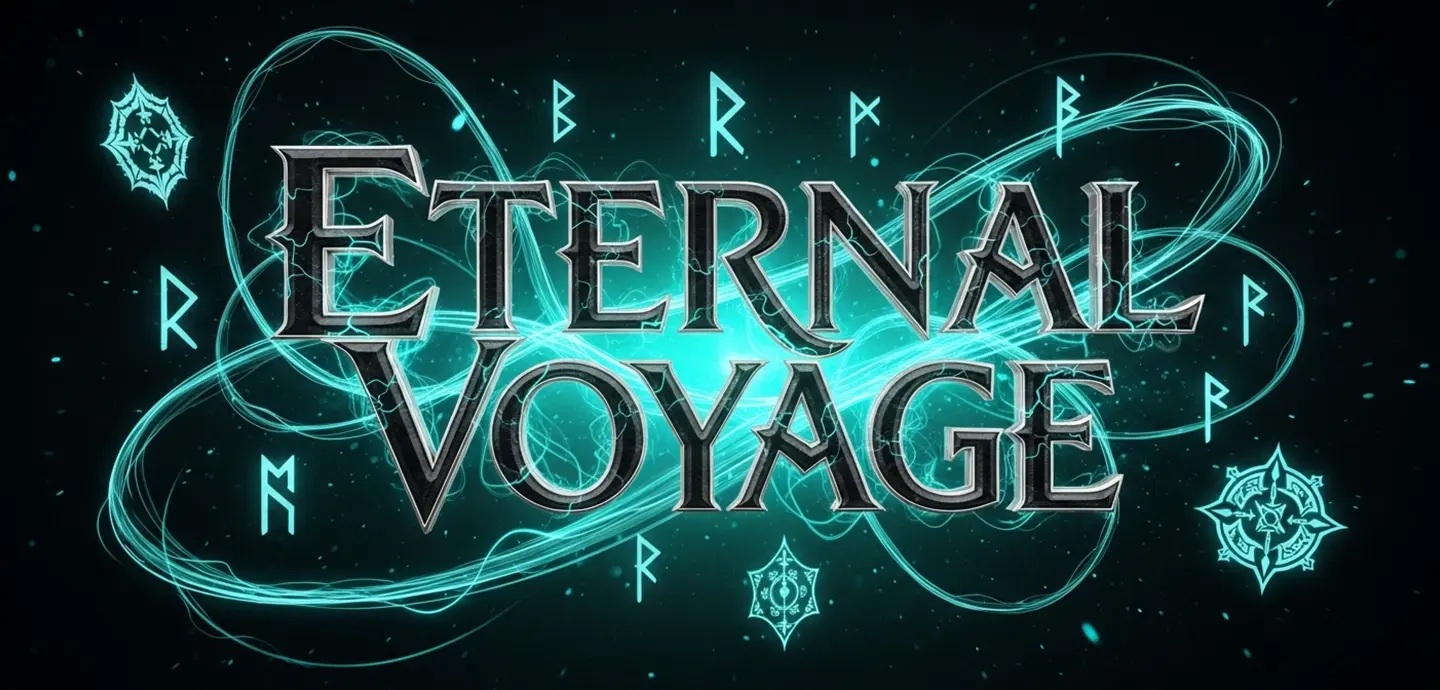
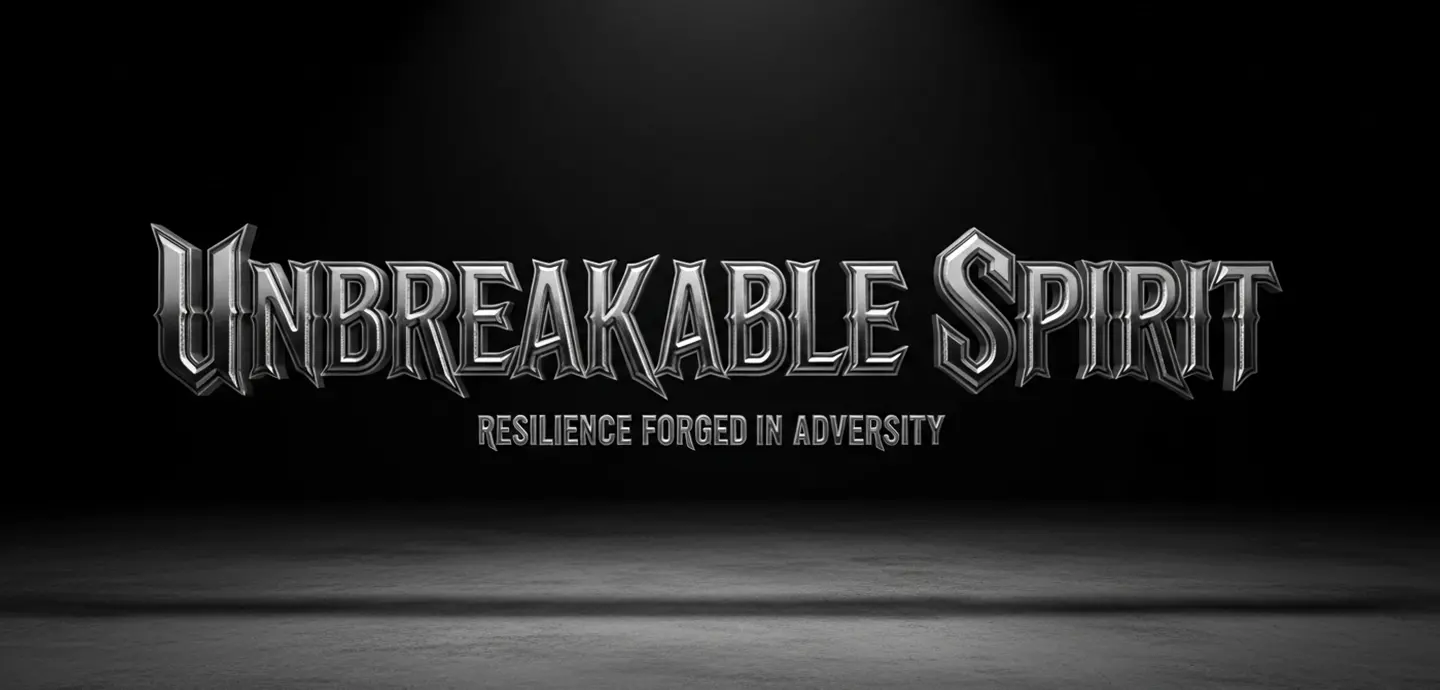
Bring your boldest ideas to life with masterful Gothic font styles that match your vision—from razor-sharp chrome and ancient stone to intricate tattoo ink and royal gold motifs. Our AI generator makes it effortless to explore and customize unique Blackletter designs, helping you forge the perfect logo or artistic lettering with endless creative possibilities.
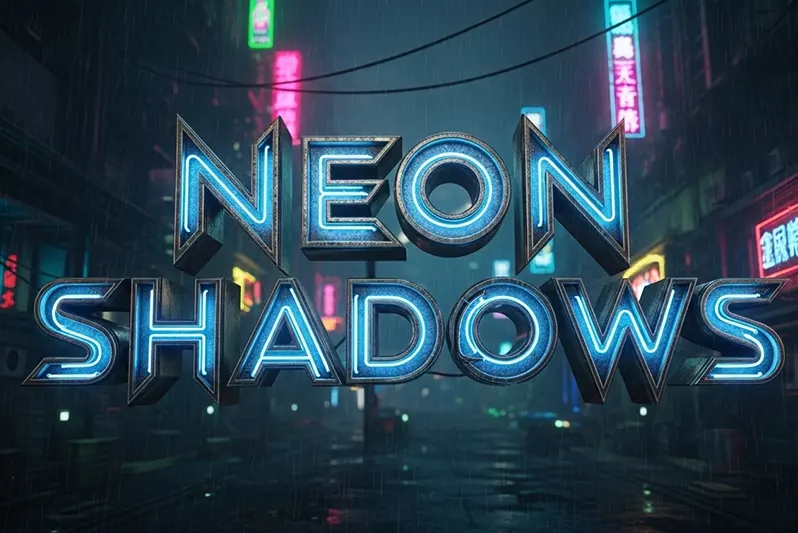
This razor-sharp chrome Gothic font features a high-shine metallic finish with aggressive, spiked edges. Set against dark concrete and neon glints, it is ideal for streetwear logos, edgy apparel branding, and making your brand identity feel like a bold statement.
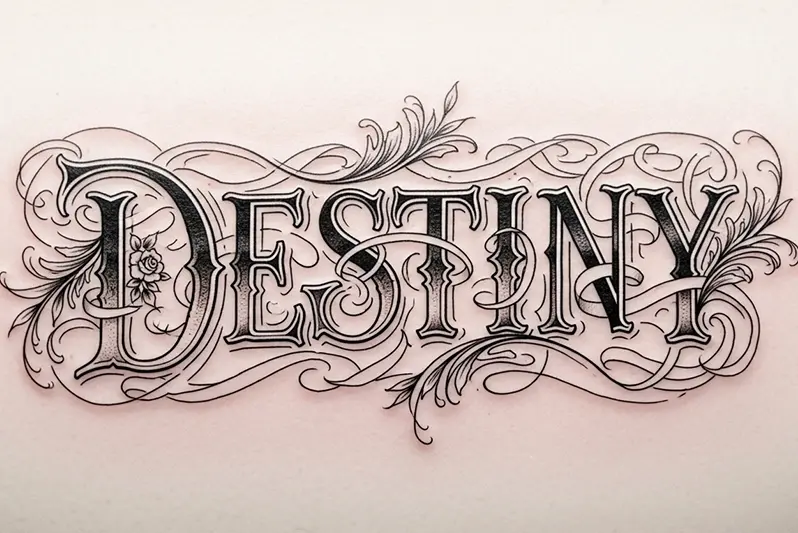
This ornate blackletter Gothic font features dense calligraphic flourishes and sharp, thorn-like details. Set against aged parchment and technical grids, it is ideal for professional tattoo flash art, custom body lettering, and creating an authentic handcrafted feel.
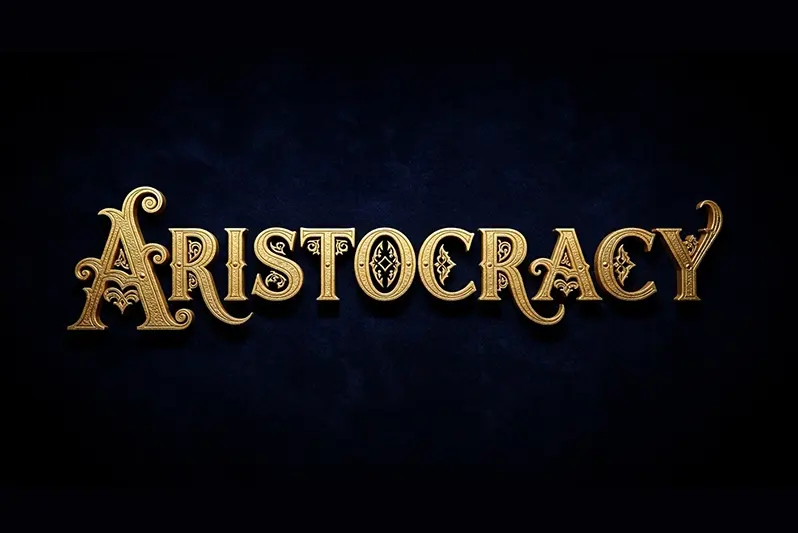
This regal gold Gothic font features a rich 3D embossed foil texture with an antique patina. Set against deep emerald velvet and soft-focus highlights, it is ideal for luxury packaging, high-end monograms, and making your brand feel like a timeless legacy.
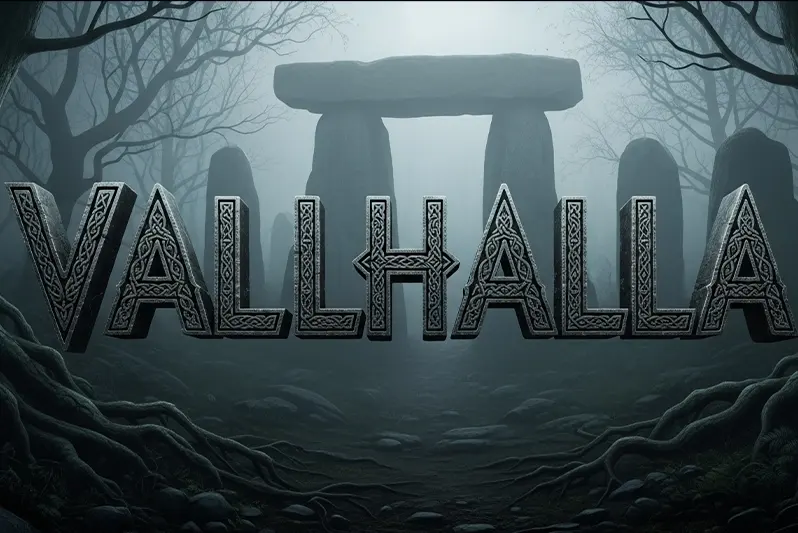
This ancient stone Gothic font features a rugged, weathered texture carved with mystical Celtic patterns. Set against misty forests and mossy ruins, it is ideal for epic fantasy book covers, RPG game titles, and creating a sense of ancient mystery.
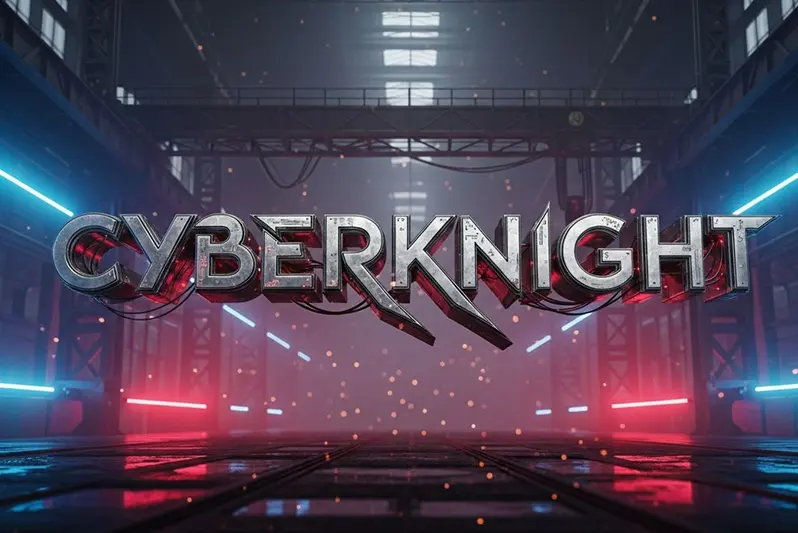
This mecha-industrial Gothic font features interlocking metallic plates and glowing red circuitry accents. Set against a smoky factory hangar and blue rim lights, it is ideal for collectible toy branding, sci-fi posters, and high-tech digital art.
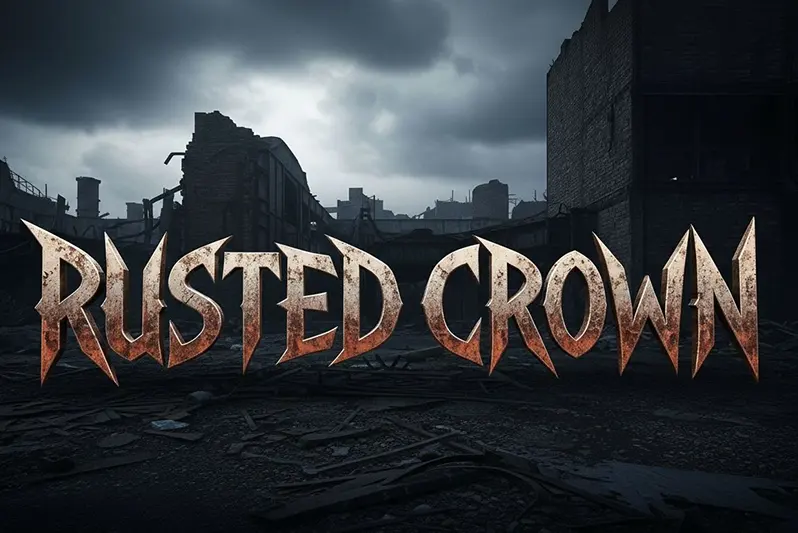
This jagged metal Gothic font features a pitted, rusted iron texture with heavy corrosion and sharp serrations. Set against a desolate wasteland and stormy skies, it is ideal for heavy metal album covers, rock band logos, and underground posters.
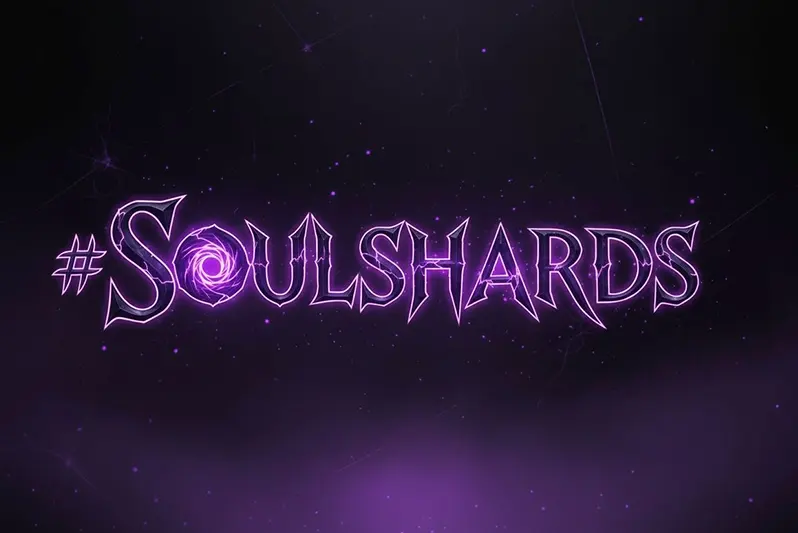
This ethereal crystal Gothic font features a luminous internal glow with jagged, shard-like structures. Set against a dark cosmic void and swirling magic mist, it is ideal for fantasy game interfaces, mystical quest titles, and making your game text feel magical.
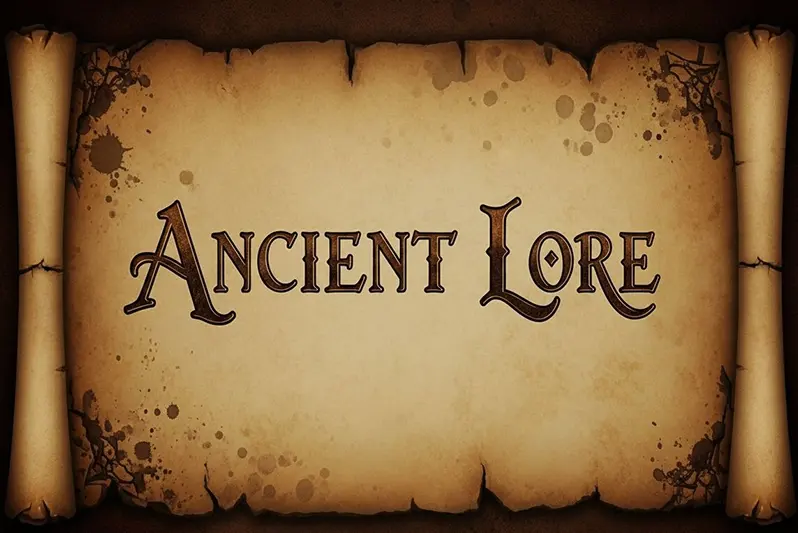
This authentic ink Gothic font features faded sepia tones and the subtle texture of traditional hand-calligraphy. Set against brittle parchment and flickering candlelight, it is ideal for historical book titles, vintage documents, and antique-style branding.
This refined blackletter Gothic font features balanced architectural strokes and understated elegant flourishes. Set against ivory textured cardstock and natural light, it is ideal for formal wedding invitations, regal event stationery, and sophisticated personal monograms.
This distressed horror Gothic font features clawed, jagged edges and dark, unsettling blood-stained textures. Set against a stormy cliffside and low-key lighting, it is ideal for thriller movie posters, suspenseful game titles, and creating an atmosphere of dread.